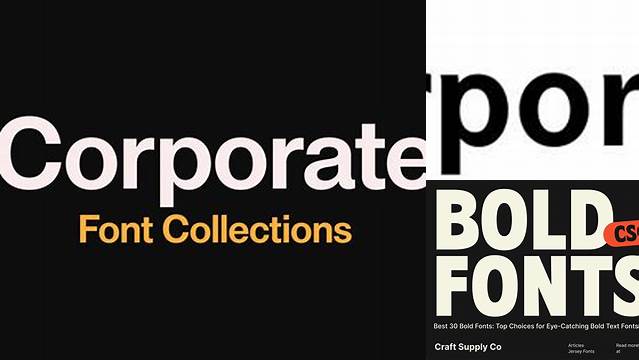
Hey guys! Looking for some awesome fonts to give your corporate projects a serious upgrade? You've come to the right place! We're diving deep into the world of corporate bold fonts and hooking you up with a bunch of free downloads. These fonts are perfect for everything from eye-catching headlines and sleek presentations to professional reports and branding materials. Get ready to make your work stand out with some killer typography. Let's get started!
1. Understanding the Power of Corporate Bold Fonts
Alright, so why are corporate bold fonts such a big deal? Well, they pack a punch! They're designed to grab attention, convey authority, and communicate a sense of trust and reliability – all super important in the corporate world. Think about it: the right font can instantly elevate your brand's image. A bold font, in particular, can make a statement without being overly flashy. It's all about balance, guys. You want to look professional, modern, and memorable.
Corporate bold fonts often feature clean lines, strong serifs (those little feet at the end of letters), or a sans-serif style that's easy to read. They are the workhorses of professional design, the typefaces you can rely on to deliver your message with clarity and impact. These fonts are specifically engineered for readability, so even in smaller sizes, your audience can easily absorb the information. A well-chosen corporate bold font can also communicate your company's personality. Are you a traditional, established firm? A classic serif might be the perfect fit. Or perhaps your brand is all about innovation and forward-thinking? In that case, a modern sans-serif with a bold weight could be the way to go. The use of bold in fonts also helps to create a visual hierarchy, guiding the viewer’s eye to the most important information. Using bold for headlines and subheadings makes it easy for readers to scan your content quickly and grasp the main points. Plus, when you download a corporate bold font, you are opening up a world of design possibilities. You can experiment with different weights, sizes, and styles to create a cohesive and impactful visual identity.
2. Top Free Corporate Bold Font Downloads
Another benefit of using these corporate bold font is that they are designed to be versatile. They can be paired with a variety of other fonts to create a harmonious and professional look. Mixing and matching fonts can add visual interest to your designs. Always remember to choose fonts that complement each other and don't clash.
3. Key Features to Look for in Corporate Bold Fonts
When you're downloading a corporate bold font, there are a few key features to keep in mind to ensure you're getting the best fit for your needs. First and foremost, consider readability. The font should be easy to read, especially at different sizes. Test it out in a variety of contexts to make sure it works for headlines, body text, and everything in between. The font should also be versatile. Does it come in a variety of weights and styles? This will give you more flexibility in your designs. You don't want to be limited to a single weight if you need to create visual hierarchy.
Ready to start your font hunt? There are tons of websites and resources out there where you can find amazing free corporate bold fonts. Here are a few of our favorites to get you started. Google Fonts is an excellent resource. It's a vast library of open-source fonts, including many great corporate bold fonts. All the fonts are free to use, and you can easily download them and use them in your projects. Another great option is DaFont. This website offers a huge selection of fonts, including many free options. Just be sure to check the license before you download. Another website is Font Squirrel. Font Squirrel curates a collection of high-quality, free fonts that are ready for commercial use. They also offer a font identifier tool that helps you find fonts based on images.
Creative Market is another great option. While not all fonts on Creative Market are free, they offer freebies every week. It’s a good place to find unique and high-quality fonts for your projects. Behance and Dribbble. These platforms are great for inspiration and finding designers who create beautiful fonts. You might even find free font giveaways or downloads. Make sure you always check the licensing details of a font before using it. Some free fonts are only for personal use, while others can be used commercially. Additionally, download from reputable sources to avoid any potential malware or security risks. Try out multiple fonts to see which one fits your brand the best. Experiment with different combinations and see what works best for your project.
5. Best Practices for Using Corporate Bold Fonts in Your Designs
Now that you've got your fonts, let's talk about how to use them effectively. First, choose fonts that match your brand’s overall aesthetic. Your font should communicate the right message and resonate with your target audience. Consider your brand’s personality. Are you a serious and formal company? Then a classic serif or a clean sans-serif might be a good choice. Or are you a more modern and innovative company? Choose a bold, contemporary font. Secondly, create a visual hierarchy using different font weights and sizes. Use bold fonts for headlines and subheadings to draw attention and guide the reader's eye. Varying the size of your fonts can also help to establish a visual hierarchy.